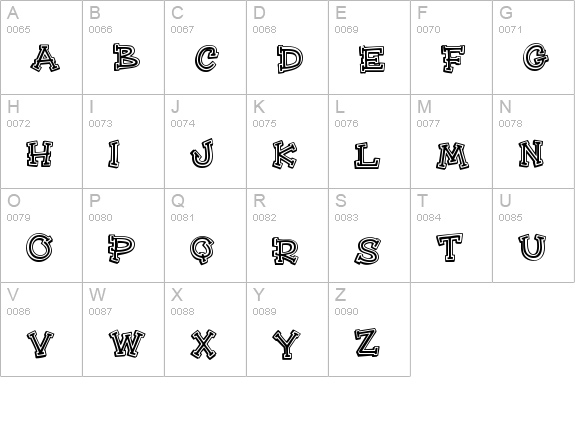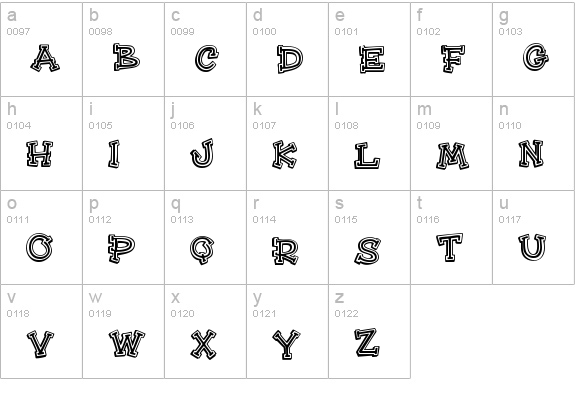
Hee Haw MF font is a whimsical and playful typeface that exudes charm and character. Its quirky design features exaggerated serifs and unique letter shapes that add a touch of fun to any project. Whether you're looking to create eye-catching headlines or add a touch of whimsy to your designs, Hee Haw MF font is sure to make a statement. Best of all, Hee Haw MF font is available for free download at FontsMarket.com. This means you can easily access this delightful font and incorporate it into your creative projects without breaking the bank. So go ahead and give your designs a touch of whimsy with Hee Haw MF font, the perfect choice for adding a playful and unique flair to your work.